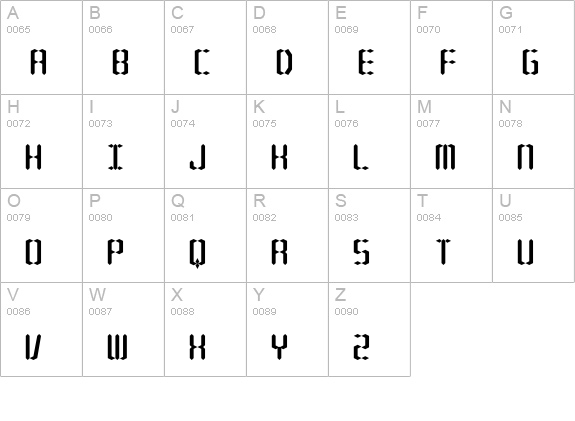
Compliant Confuse 1s -BRK- Font Details
Compliant Confuse 1s -BRK- font is a unique and eye-catching display typeface that combines a sense of compliance with an intriguing touch of confusion. Its playful and unconventional design makes it perfect for adding a creative twist to your projects. This font will capture attention and spark curiosity, making it an ideal choice for posters, branding, and social media graphics. Compliant Confuse 1s -BRK- font is freely available to download at FontsMarket.com, allowing you to unleash your creativity without any cost. With its bold and distinctive appearance, this font is sure to make a statement and set your designs apart from the rest. Give your projects a fresh and modern look with Compliant Confuse 1s -BRK- font today!